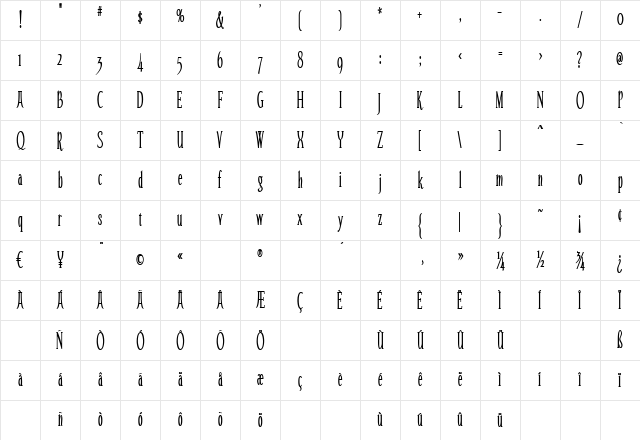
Echelon Condensed Regular Free Font
Echelon Condensed Regular
Echelon Condensed Family
Design Context for Echelon Condensed
Echelon Condensed is a composed and adaptable typeface that performs quietly and consistently across a wide range of design contexts. Its narrow stance lets it pack a punch even in space-constrained designs.
Pro Tip: Use Echelon Condensed in both headline and body roles to test its range before committing to a single application.